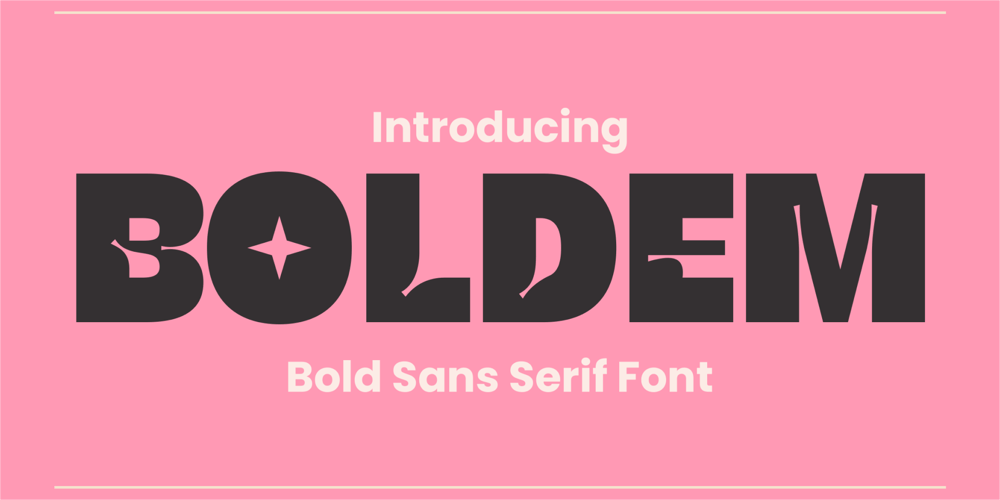
Boldem Font Family was designed by Heri Imanudin and published by Krafted. Boldem contains 1 styles and family package options. Strong yet versatile, Boldem is the perfect choice for your creative projects. Use it for your website, social media branding, banners, bold headlines, and so much more! Make a statement that stands out with the confident energy of Boldem’s bold sans serif design. What you’ll get: Multilingual & Ligature Support Full sets of Punctuation and Numerals Compatible with: Adobe Suite Microsoft Office Keynote Pages